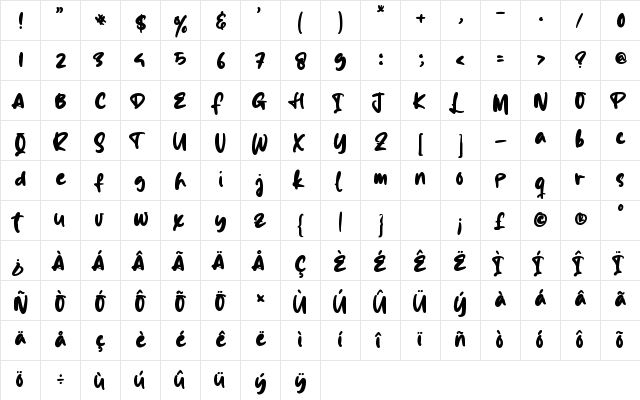
share works Regular
| Designer | Colllab Studio |
Design Context for share works Typeface
share works is a composed and adaptable typeface that performs quietly and consistently across a wide range of design contexts.